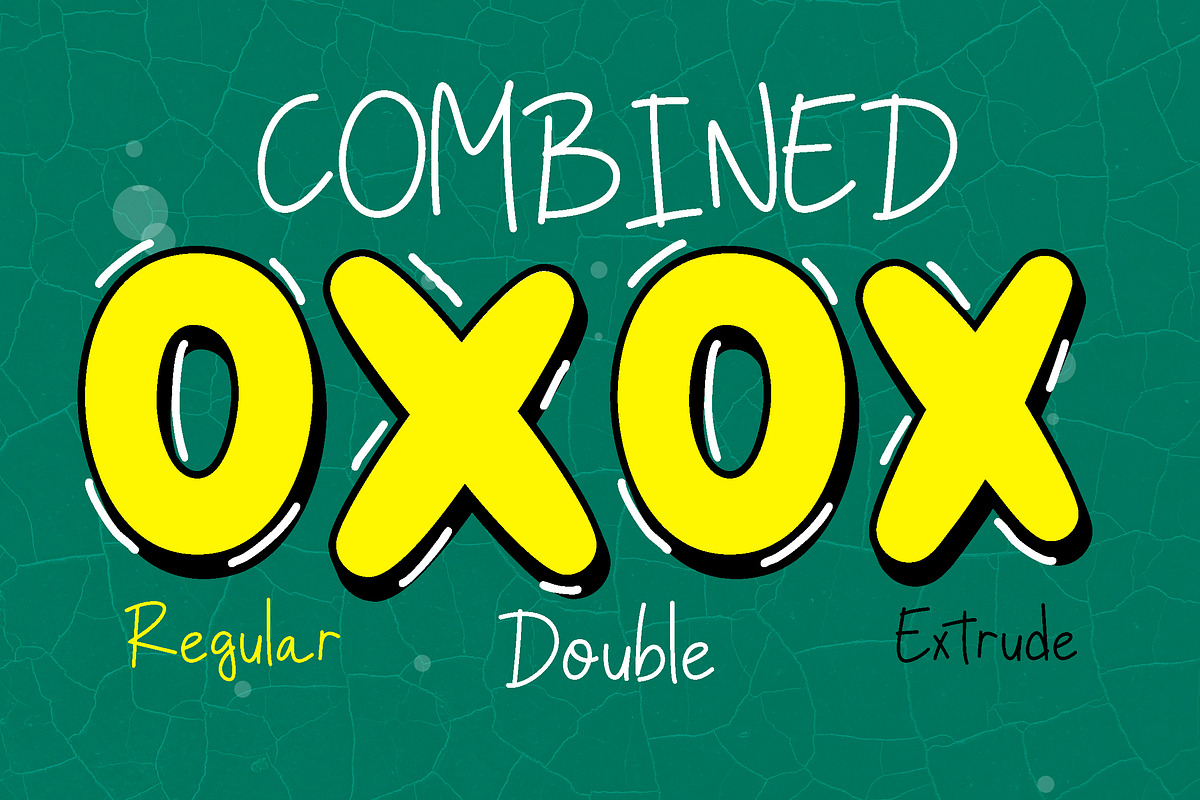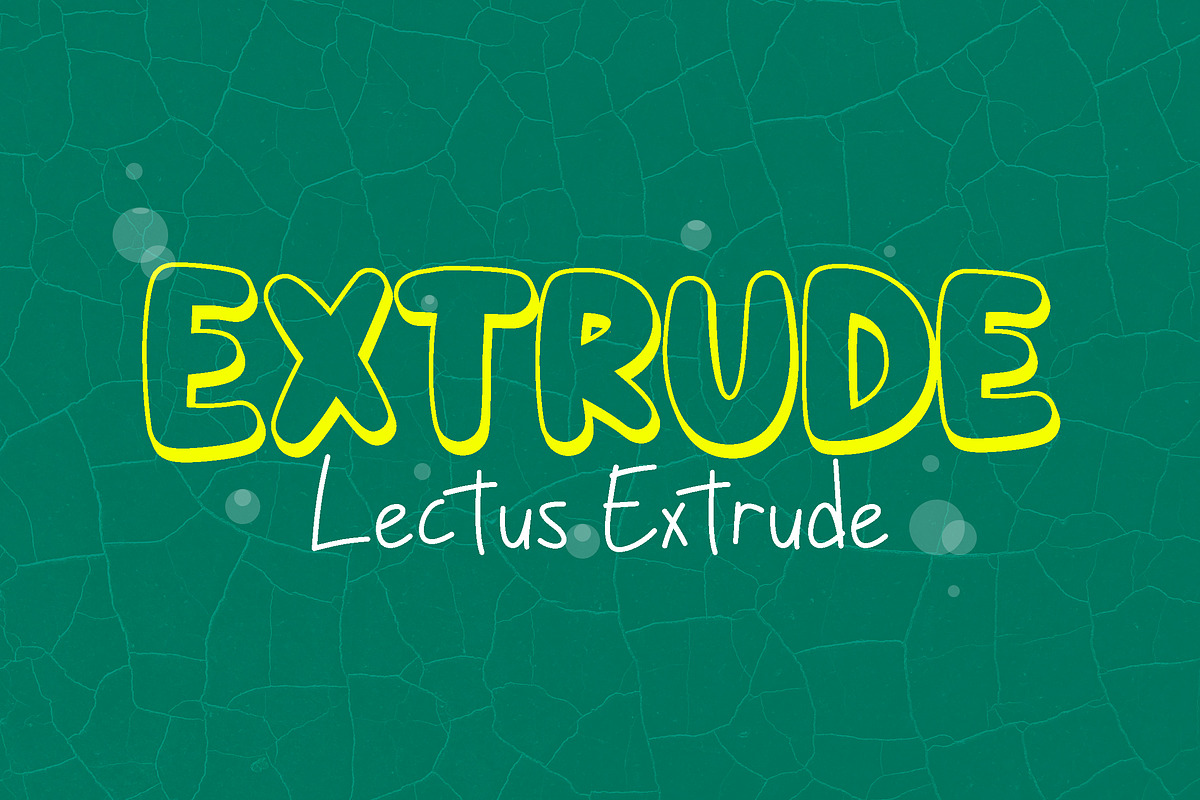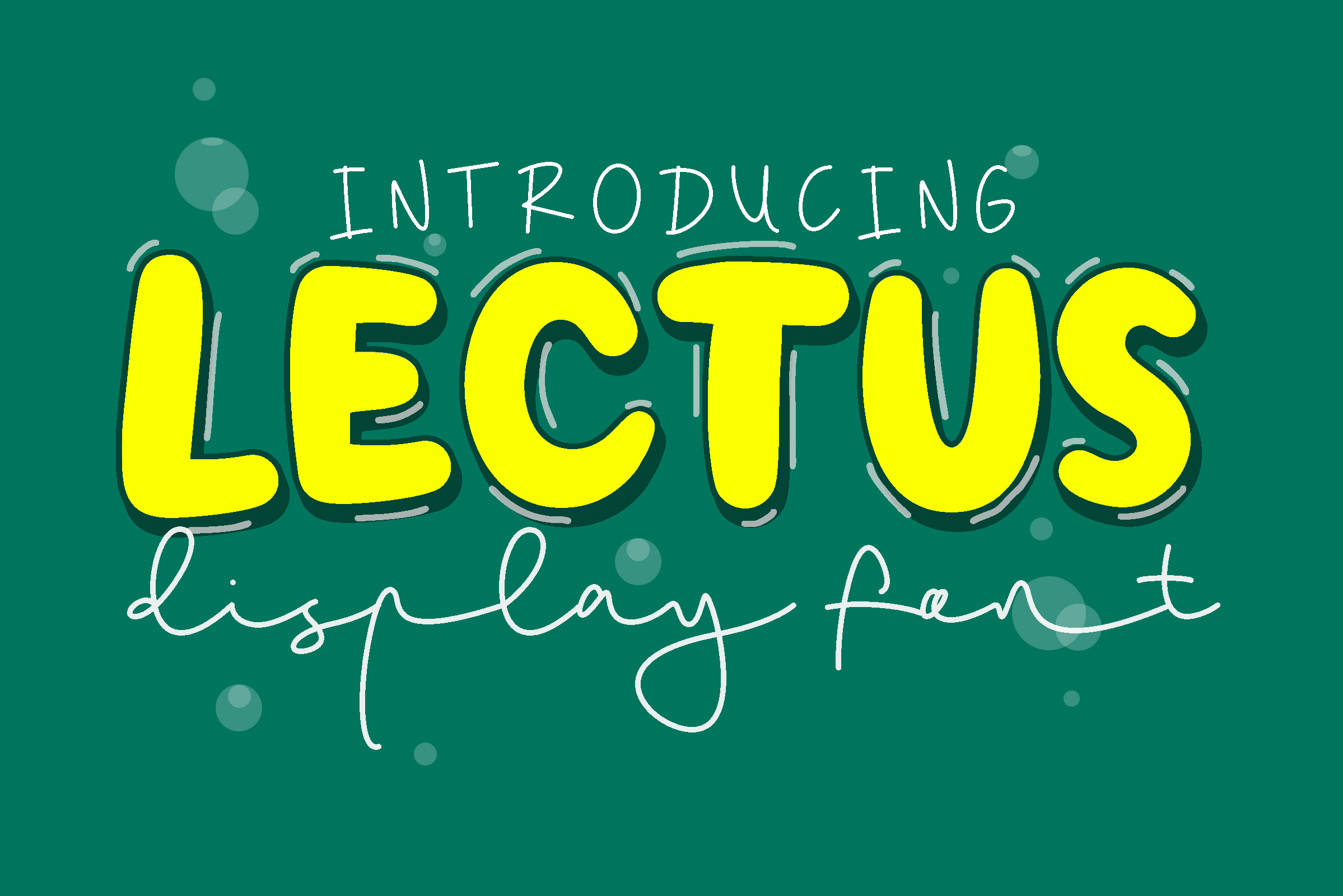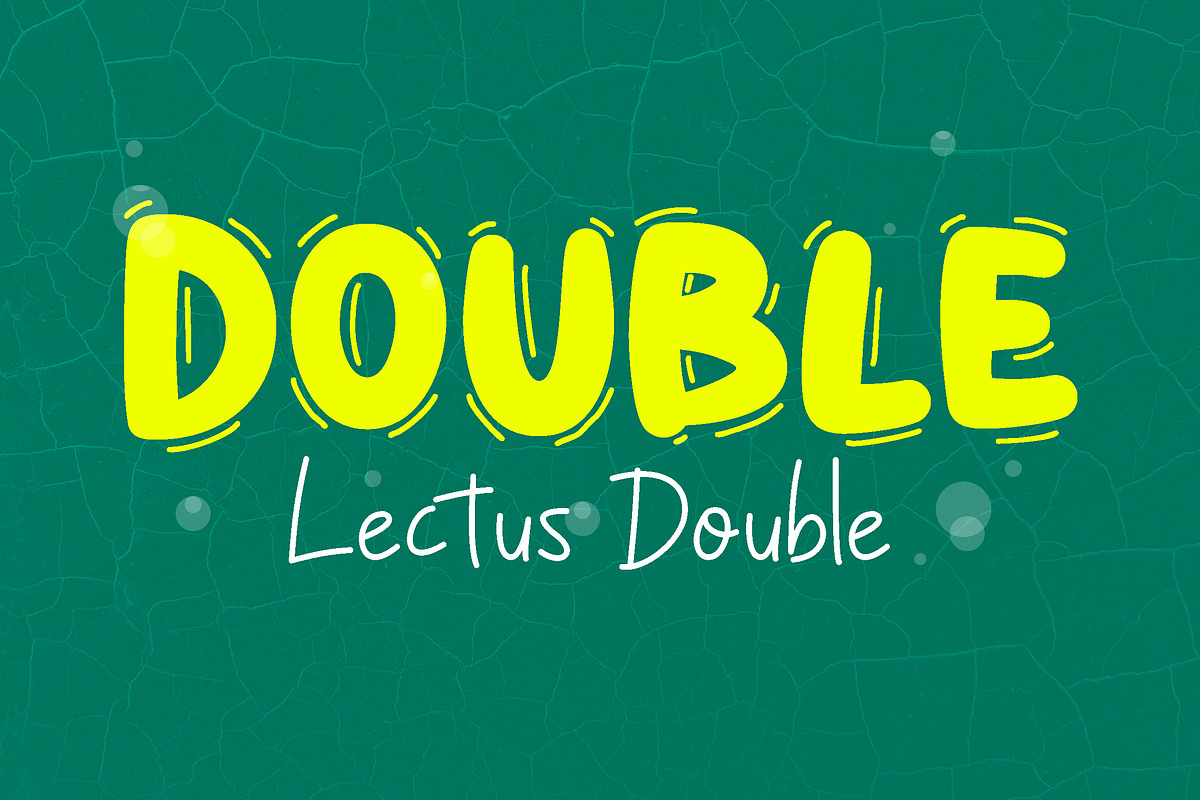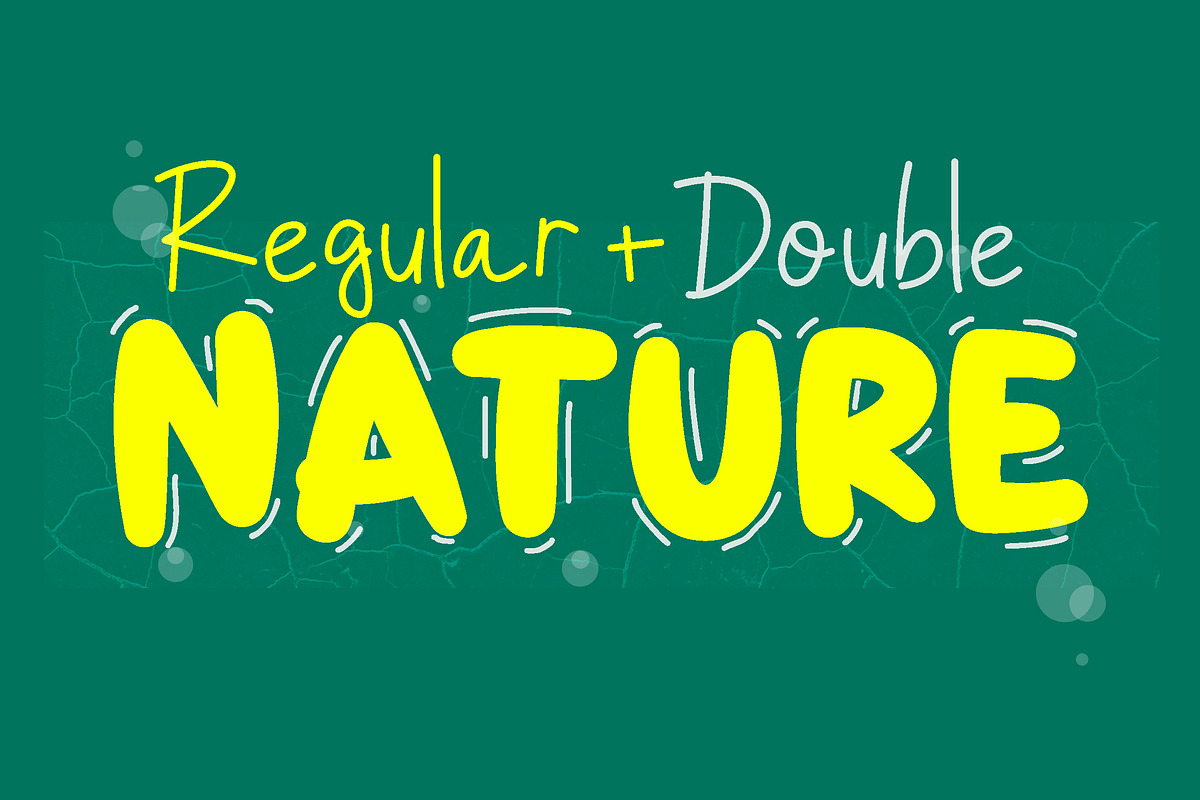
Lectus - Display font
Lectus is a fun and cool display font with a unique style. This font is suitable for designs such as t-shirts, sportswear, logos, advertisements, clothing, and more. Fully PUA encoded for easy character map access.